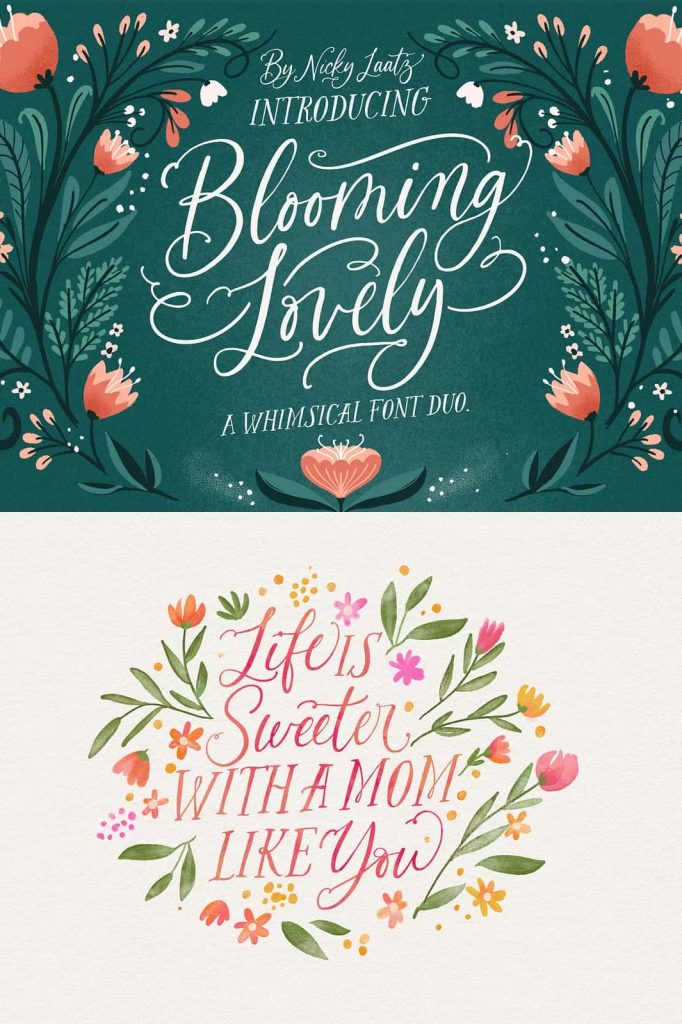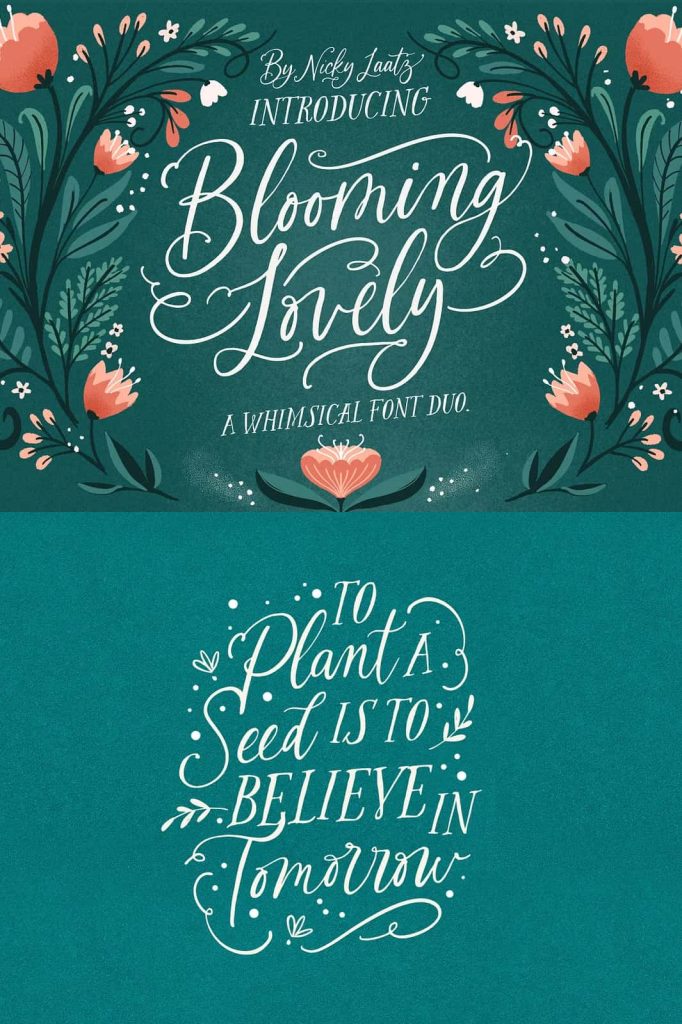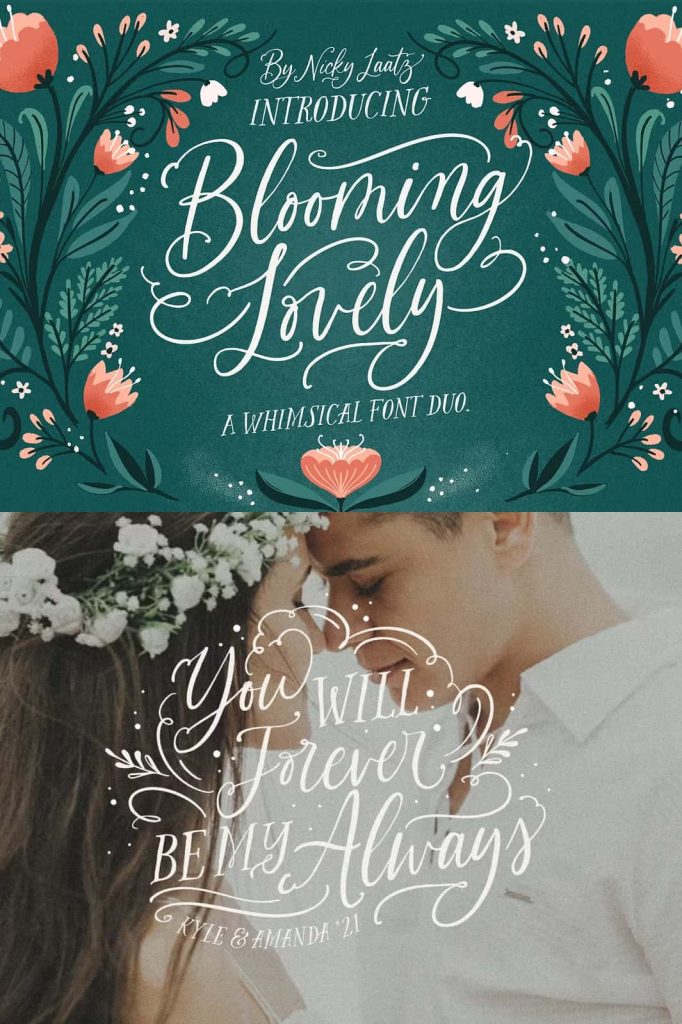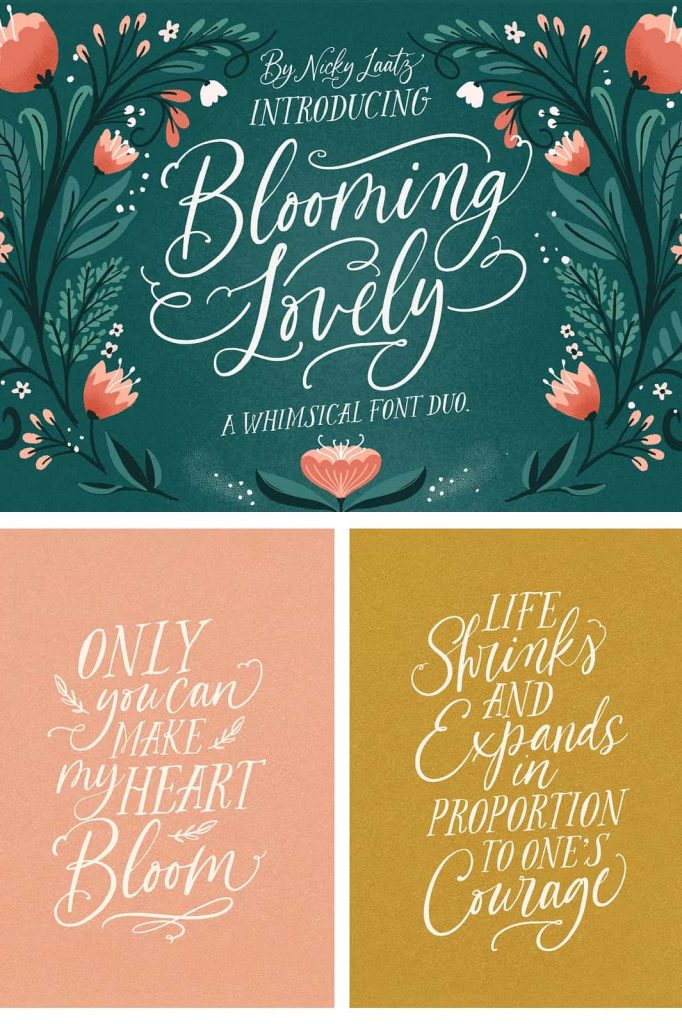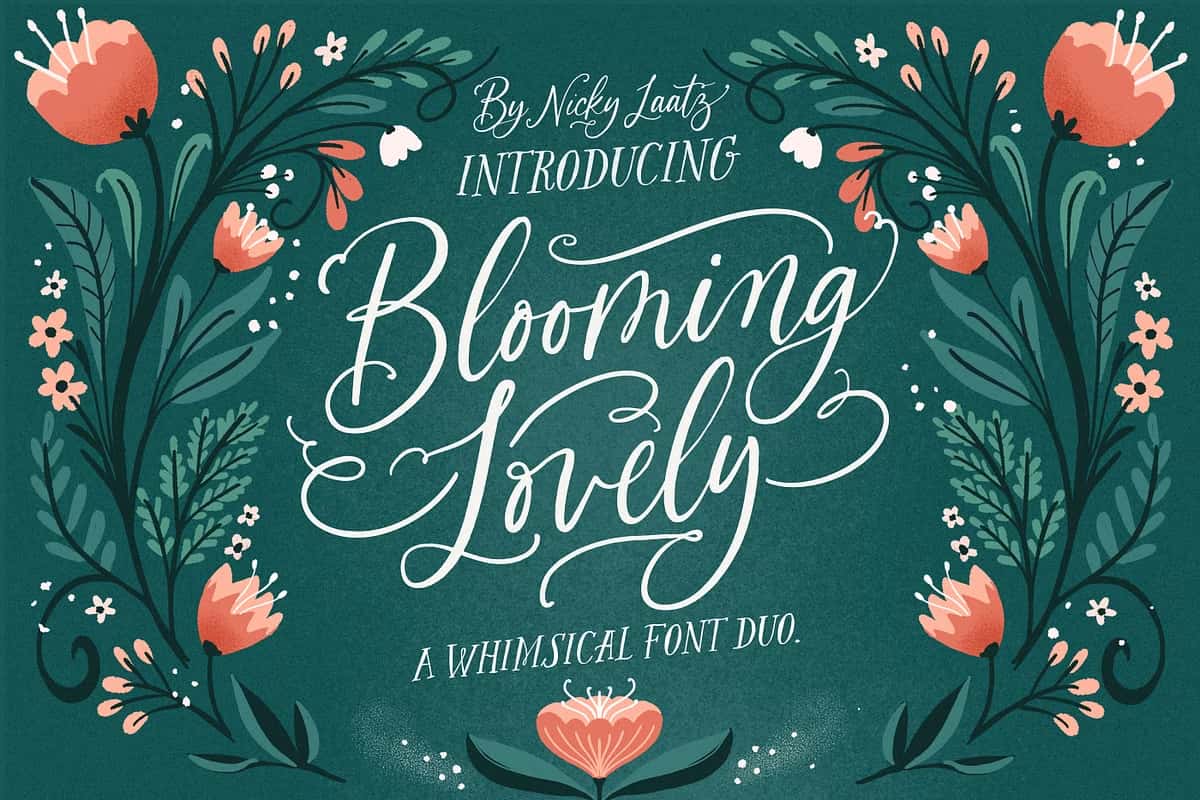
The Blooming Lovely Font Duo: Whimsical Calligraphy Meets Elegant Serif Design
The Blooming Lovely Font Duo is a thoughtfully designed pairing that brings together expressive handwritten calligraphy and a charming all-caps serif typeface. This combination creates a harmonious balance between softness and structure, making it a powerful typographic solution for designers who want flexibility, beauty, and personality in their work. Carefully crafted to complement one another, the two fonts work seamlessly as a pair while remaining strong enough to stand confidently on their own.
Blooming Lovely is designed to inspire creativity. From romantic projects to refined branding, this font duo provides a complete toolkit for building visually rich and emotionally engaging designs.
Whimsical Handwritten Calligraphy with Expressive Flow
The calligraphy font in the Blooming Lovely duo features a whimsical handwritten style that feels natural, warm, and full of character. Its flowing strokes and organic connections mimic real handwriting, creating text that feels personal and expressive. Each letter carries a sense of movement, allowing words to feel lively and dynamic.
This handwritten calligraphy style works beautifully for headlines, quotes, invitations, and decorative typography where emotion and elegance play a central role.
OpenType Alternates and Ligatures for Creative Freedom
To enhance versatility, the calligraphy font includes an extensive collection of 167 OpenType stylish alternates and ligatures. These features allow designers to customize letter combinations effortlessly, ensuring that text never feels repetitive or rigid. With just a few adjustments, typography can be shaped to suit the tone and mood of any project.
This level of control empowers designers to mould their type design exactly as they envision, resulting in unique and polished compositions.
A Charming All-Caps Serif for Balance and Structure
Complementing the handwritten calligraphy is a charming all-caps serif font. This serif brings structure, clarity, and contrast to the duo, balancing the softness of the script with a more grounded and refined presence. Its clean forms and classic proportions add sophistication and readability.
The all-caps serif is ideal for titles, logos, labels, and supporting text, providing visual stability while maintaining an elegant aesthetic.
A Perfect Match for Harmonious Typography
Together, the calligraphy and serif fonts create a match that feels intentional and cohesive. The contrast between flowing script and structured serif allows designers to establish clear hierarchy while maintaining a unified visual style. This harmony makes the Blooming Lovely Font Duo especially effective for layered typography and brand systems.
The pairing ensures that designs feel complete, balanced, and visually engaging.
Bonus Ornaments Font for Decorative Detail
In addition to the main font duo, Blooming Lovely includes a delightful bonus ornaments font. This decorative set features 68 unique flourishes, frills, and foliage-inspired elements designed to enhance and embellish typographic layouts. These ornaments allow designers to add decorative accents that elevate the overall composition.
The ornaments help fill empty spaces, frame text, and add a handcrafted touch that feels thoughtful and intentional.
Flourishes That Add a Special Touch
The included flourishes and decorative elements work beautifully alongside both the calligraphy and serif fonts. They can be used subtly to accent headings or more boldly to create ornamental frames and dividers. These details add depth and elegance, helping designs feel more refined and complete.
This bonus font expands creative possibilities without adding complexity.
Perfect for Branding, Weddings, and Creative Projects
The Blooming Lovely Font Duo is well suited for a wide range of creative applications. It shines in wedding stationery, invitations, and romantic designs, where elegance and warmth are essential. The font duo also performs exceptionally well in branding, packaging, editorial layouts, and social media graphics.
Its versatility allows designers to adapt the fonts to both formal and playful projects with ease.
Consistent Performance Across Print and Digital Media
The fonts in the Blooming Lovely duo translate beautifully across print and digital formats. The calligraphy retains its expressive detail, while the serif maintains clarity and structure. The ornaments add texture and interest without overwhelming the design.
This consistency ensures a cohesive visual identity across all platforms.
A Complete Typographic Toolkit with Personality
The Blooming Lovely Font Duo offers more than just two typefaces. It provides a complete typographic system designed to support creativity, customization, and expressive storytelling. With whimsical calligraphy, a charming all-caps serif, extensive OpenType features, and decorative ornaments, this collection equips designers with everything needed to create standout typography.
For those seeking a font duo that feels elegant, flexible, and full of charm, Blooming Lovely delivers a beautifully balanced solution that transforms type design into a creative experience.